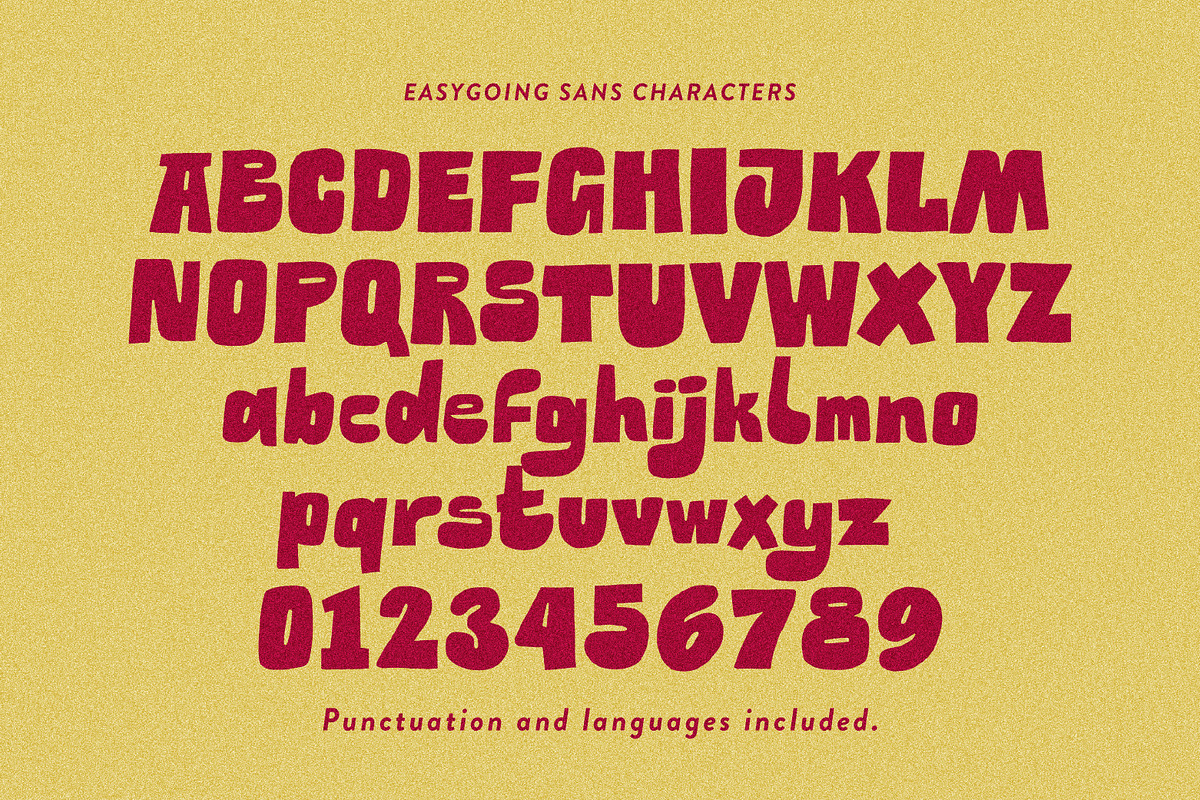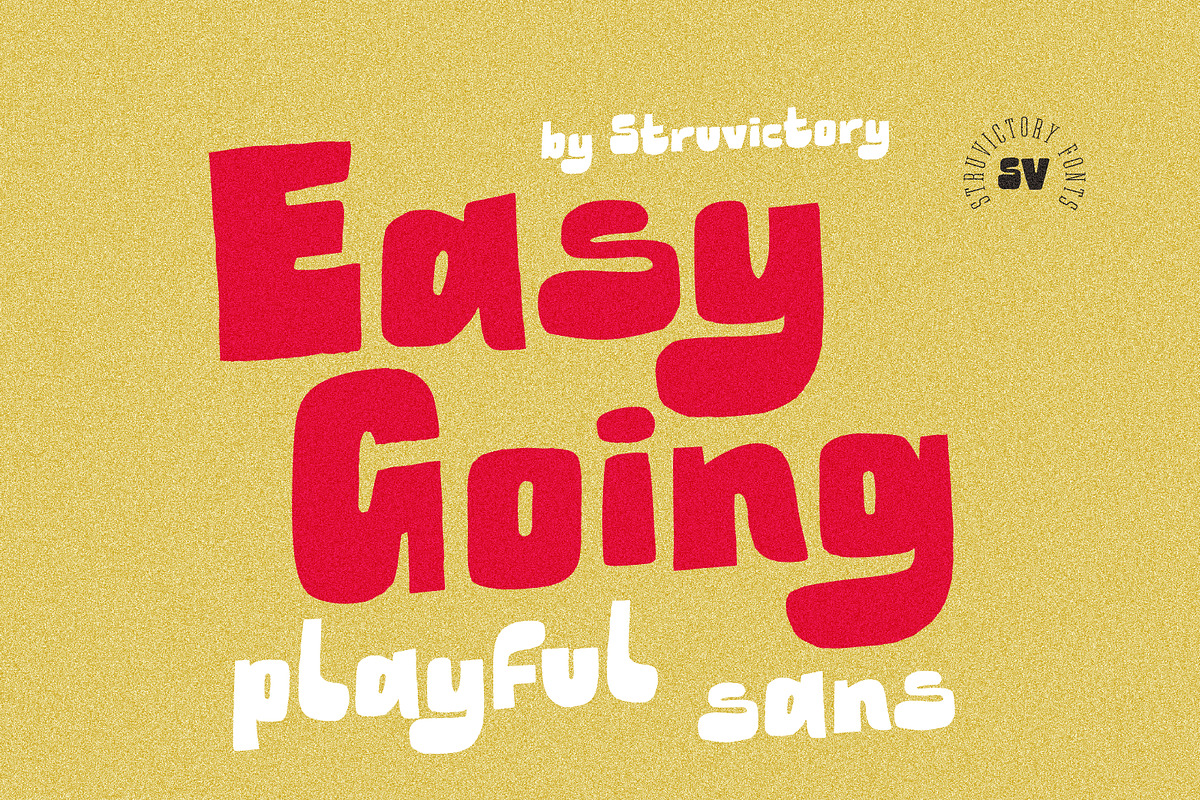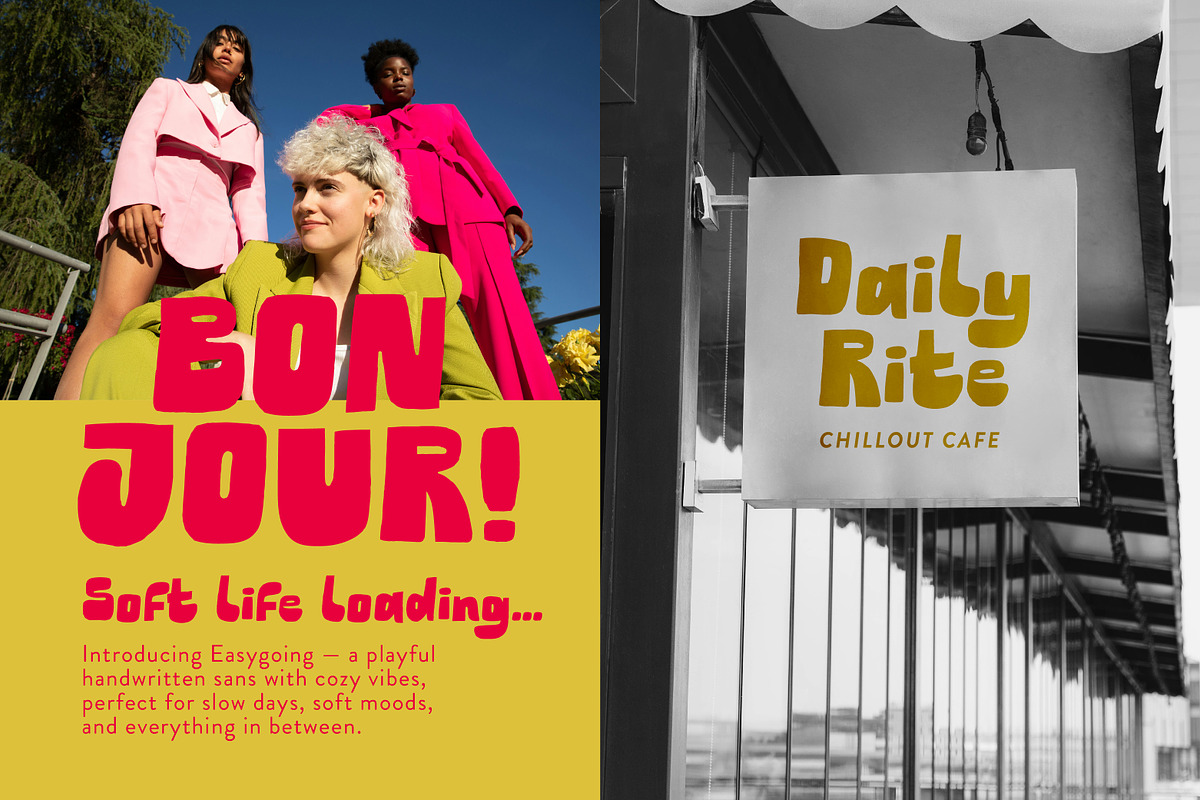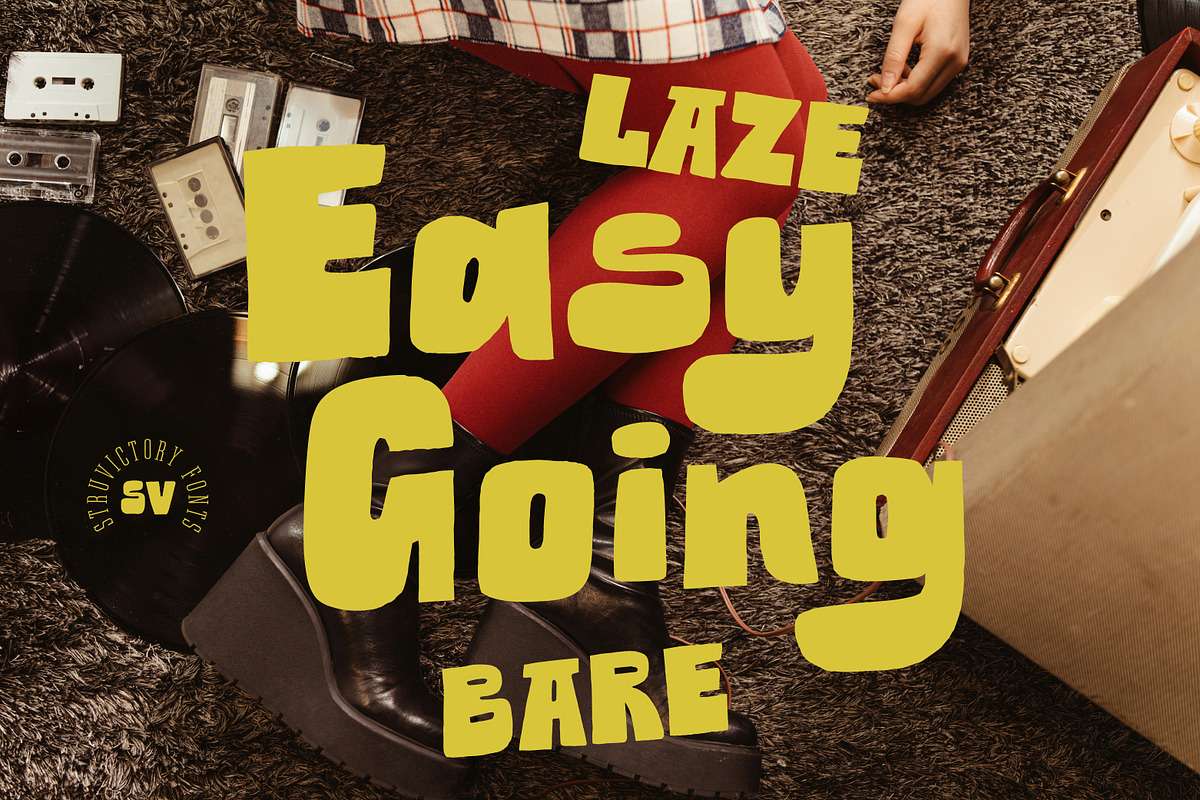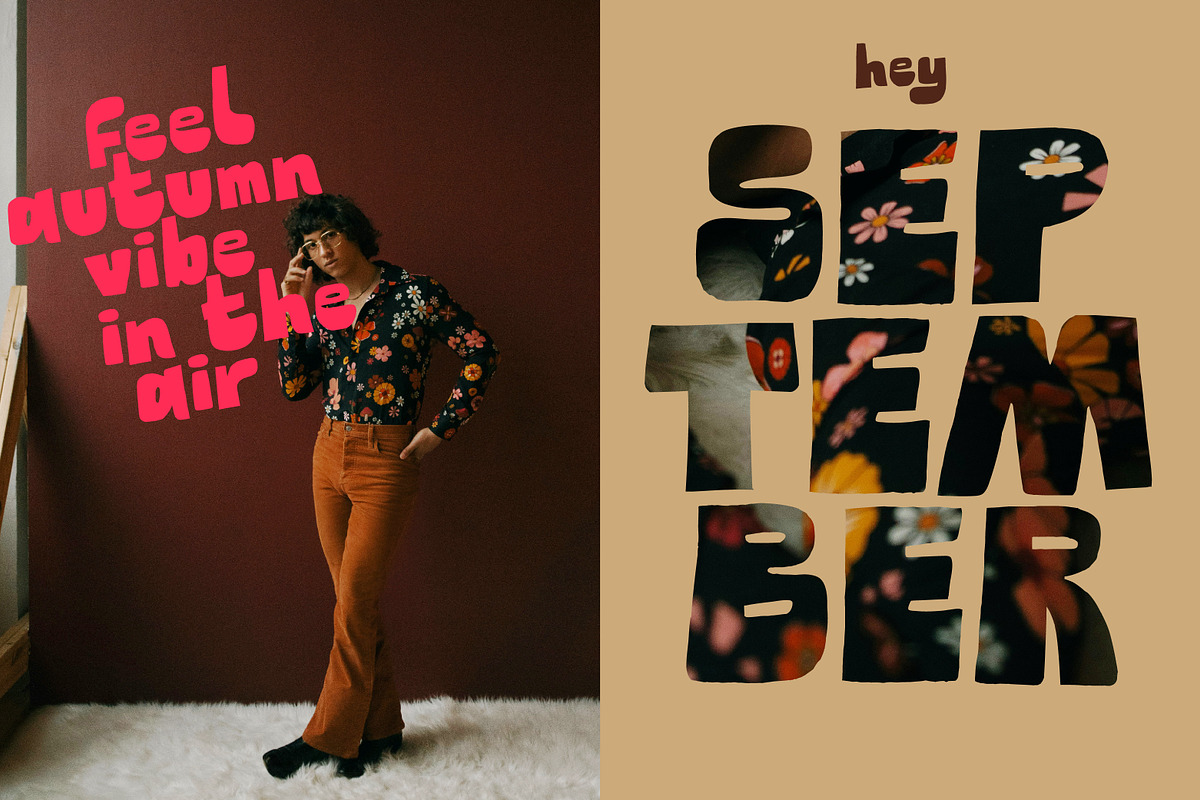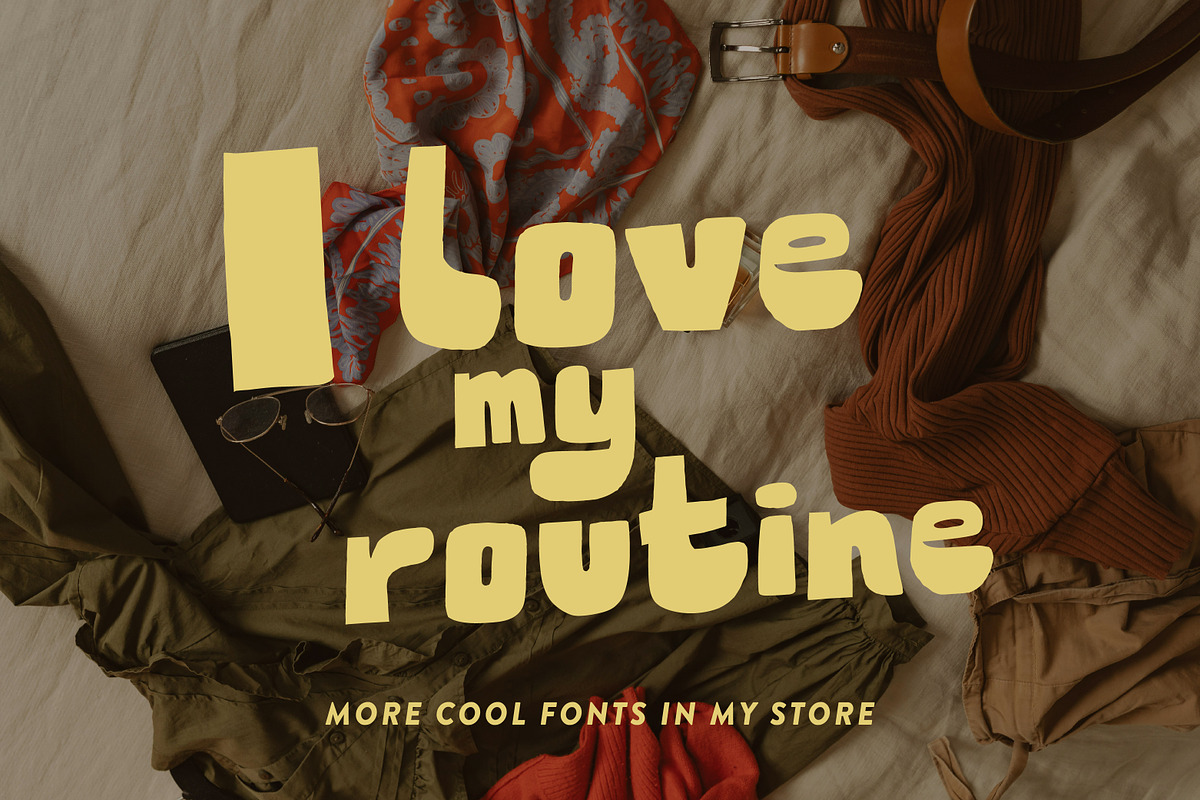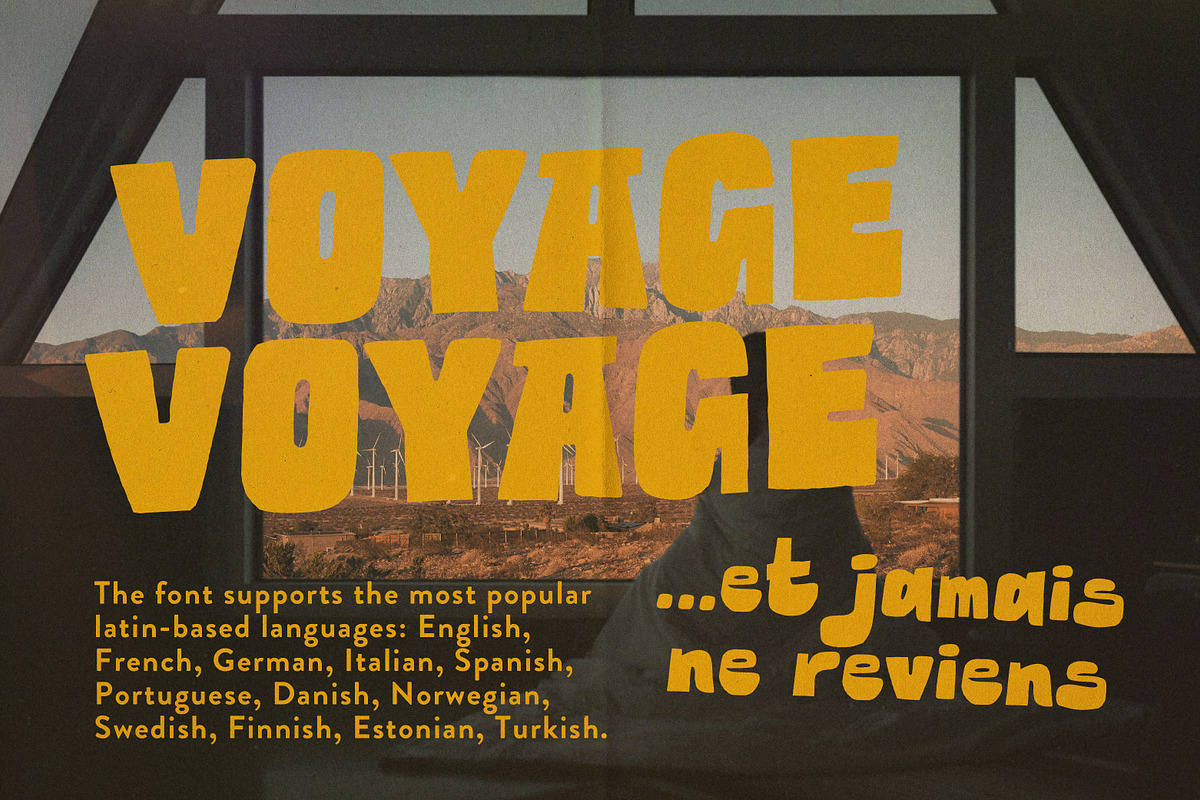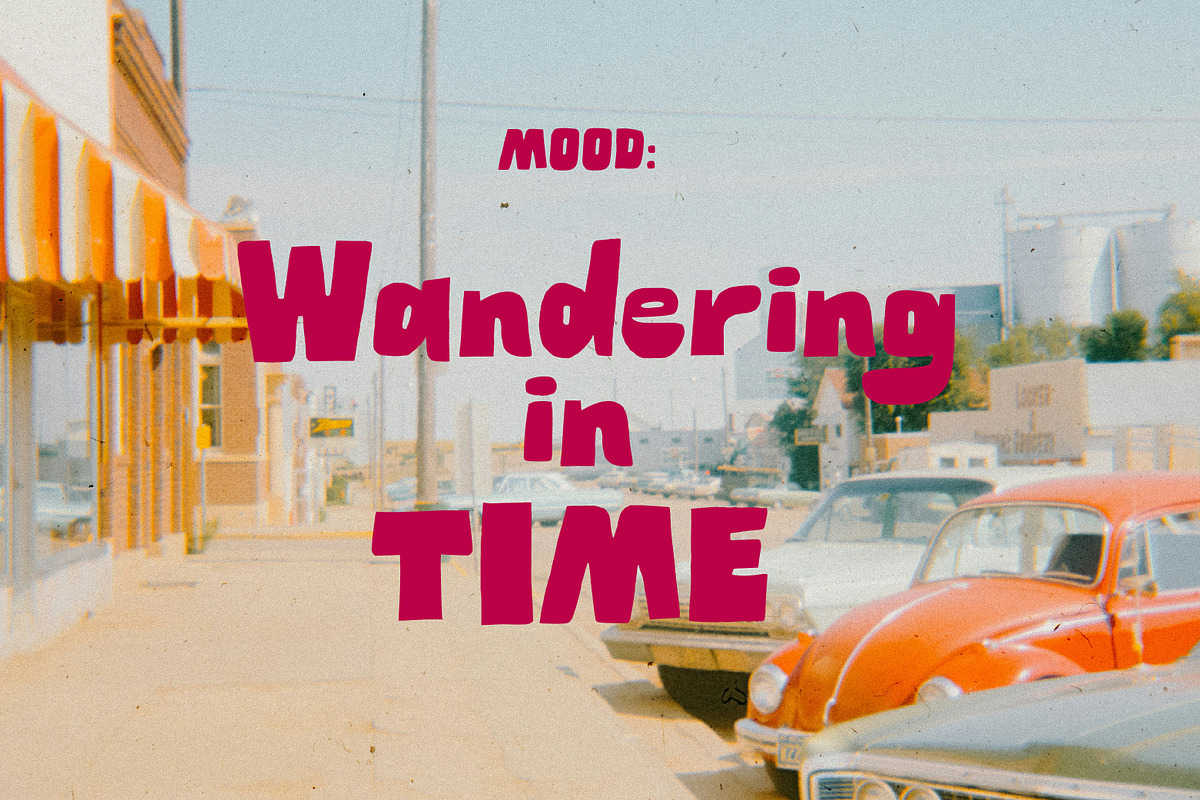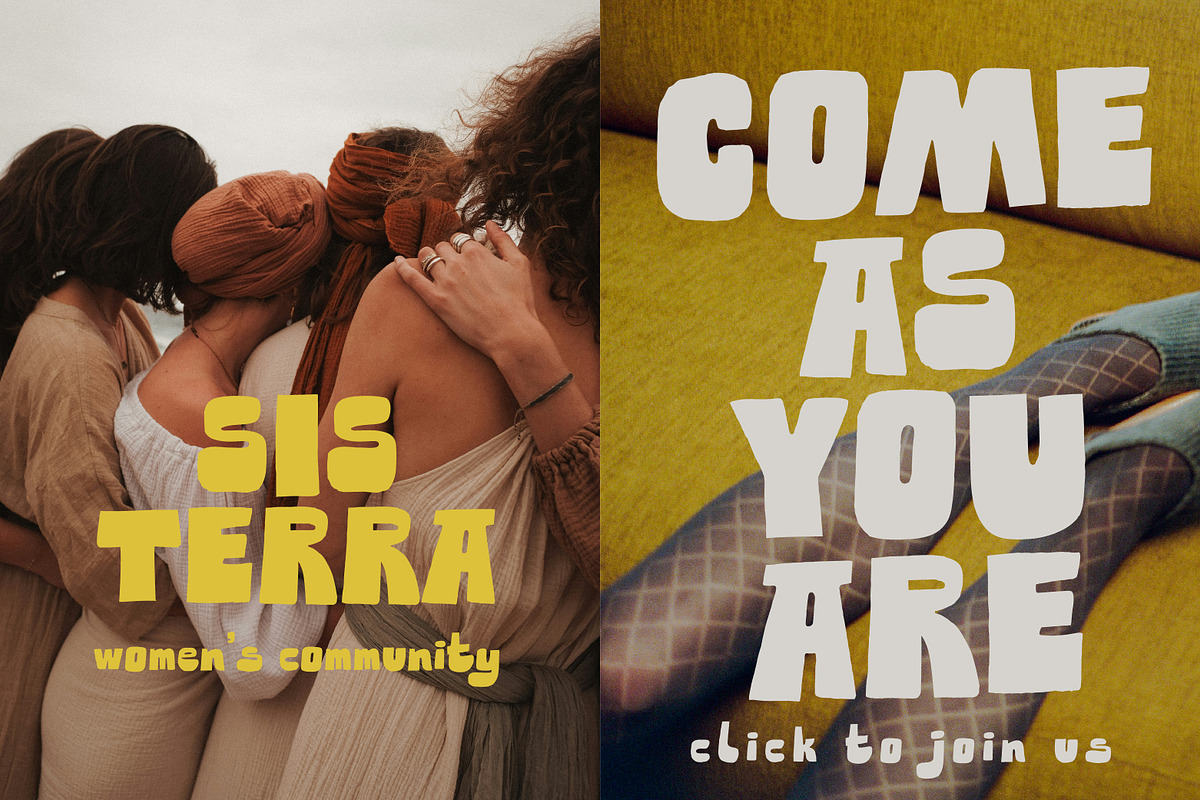
Easygoing Playful Handwritten Sans
Easygoing is a laid-back sans with a warm, nostalgic vibe, inspired by slow days, soft routines, and early autumn moods. It captures the spirit of simple joys — quiet travels, cozy rituals, and the beauty of doing less but feeling more. With bouncy shapes, smooth rhythm, and a playful soul, Easygoing is perfect for branding, posters, apparel, cafes, and anything that calls for a touch of ease, charm, and a little everyday magic.